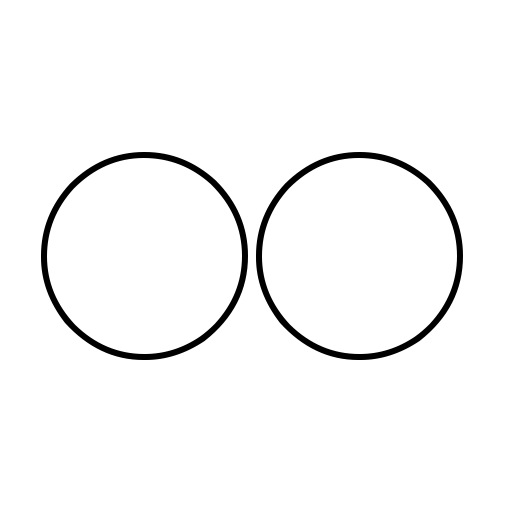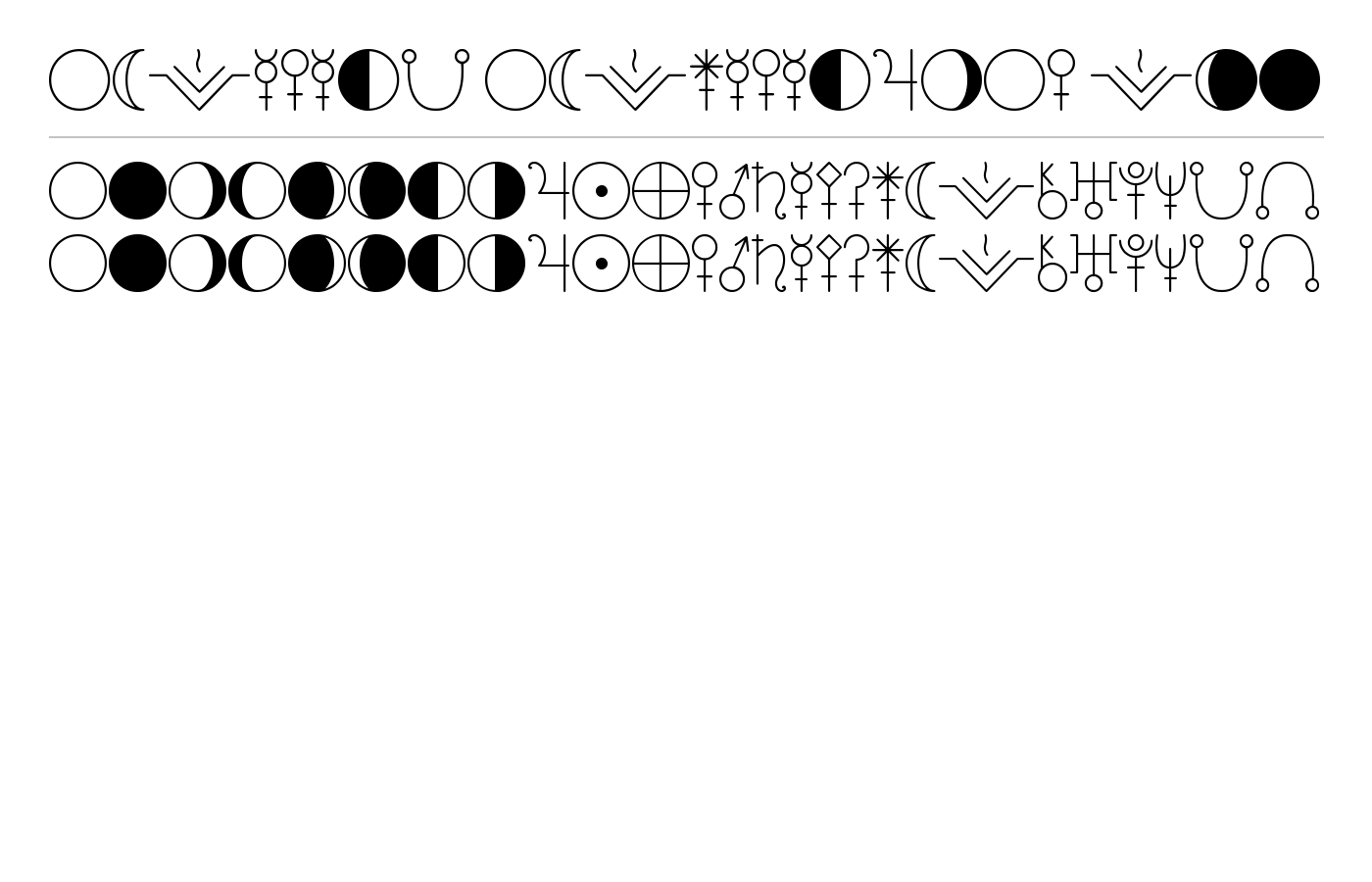
Astology Astrological TFB is a decorative symbol font featuring thin, delicate lines and geometric shapes inspired by astrological and celestial motifs. Its unique, intricate glyphs create a mystical and elegant vibe, making it perfect for spiritual, cosmic, or esoteric design projects that need a distinctive and symbolic look. This font works best for logos, headlines, or thematic displays where visual impact and conceptual style are key.
ASTOLOGY ASTROLOGICAL TFB Font
About ASTOLOGY ASTROLOGICAL TFB Font
| Font family | ASTOLOGY ASTROLOGICAL TFB Font |
| Designer | kaiser zhar khan |